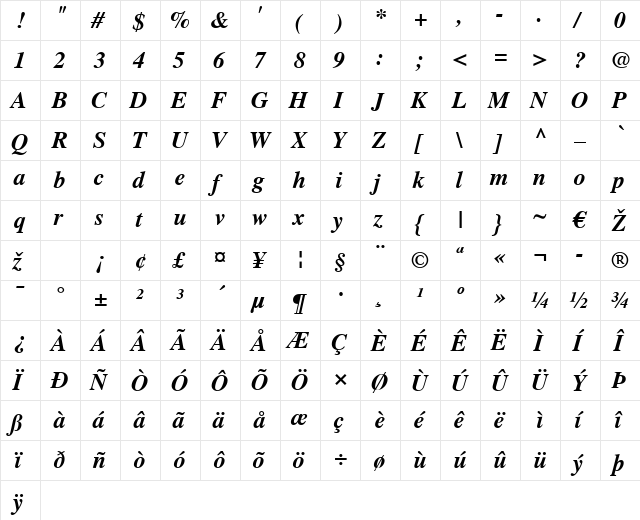
Times LT Bold Italic Font Preview
Design Context for Times LT Typeface
Times LT takes a measured approach to typography — its balanced proportions and neutral character make it a reliable workhorse for both digital and print work. The dynamic lean of this cut emphasises speed and emphasis in any layout. Its bold stroke weight gives it real presence on the page.
Pro Tip: Try Times LT for annotation and caption copy alongside an upright companion — the contrast in angle creates a dynamic but ordered typographic system.